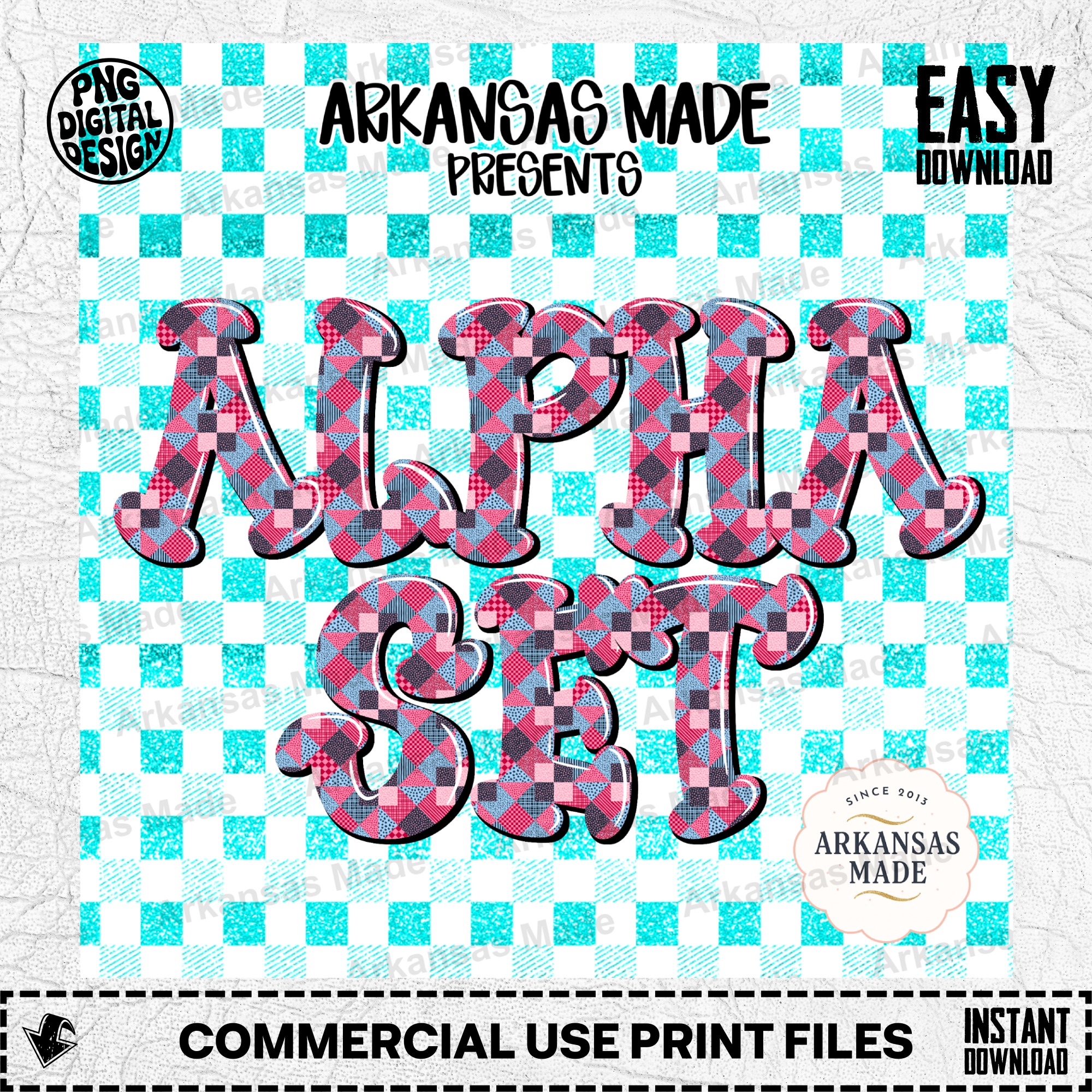
Get creative with this Patchwork Quilted Alpha Set PNG digital download, perfect for adding a cozy, crafty touch to all your sublimation projects. This unique bubble letters font features a charming printed patchwork design, making it ideal for crafters, DIY enthusiasts, and small business owners. Elevate personalized gifts, apparel, and home decor with these versatile, handmade-effect alphabet graphics. It’s a fantastic resource for creating custom items for birthdays, nurseries, or simply adding a rustic touch to everyday designs.